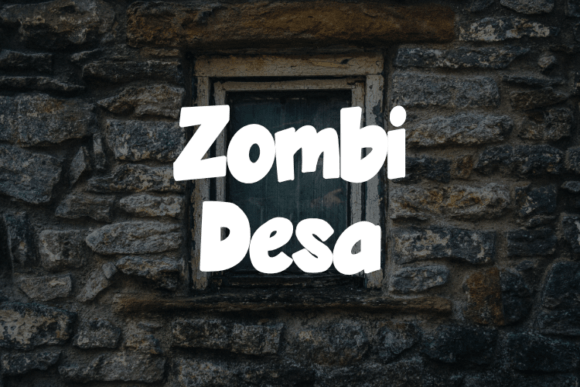
Zombi Desa: A Designer’s Practical Review
When evaluating a new display font for professional work, the first question is never just about aesthetics; it is about utility. As designers, we need to know if a typeface can survive the transition from a pristine specimen sheet to the messy reality of client projects. My initial assessment of Zombi Desa suggests it is far more than a novelty item. It carries a distinct visual weight that feels intentional rather than accidental. The letterforms possess a raw, organic texture that immediately establishes a specific mood, steering clear of the polished perfection found in standard geometric sans serifs. It feels handcrafted, evoking a sense of heritage and tactile authenticity that is increasingly valuable in modern typography.
This typeface does not whisper; it speaks with a confident, slightly weathered voice. For brand owners and marketers, this means Zombi Desa自带 an inherent narrative. It is not merely a collection of glyphs but a design asset that communicates ruggedness, tradition, or artisanal quality before a single word is read. In my evaluation, the characters maintain enough structural integrity to remain legible while delivering the decorative impact required for high-engagement visuals. It strikes a difficult balance between being a creative font and a functional tool for communication.
Real-World Application in Brand Identity
In the context of logo design, Zombi Desa performs exceptionally well when the goal is to differentiate a brand from corporate sterility. I tested the uppercase forms in a monogram lockup and found the negative space to be surprisingly cooperative. Unlike many distressed display fonts where the texture eats into the counter shapes, Zombi Desa retains clarity at medium-to-large sizes. This makes it a strong candidate for craft breweries, outdoor apparel brands, vintage-inspired cafes, and artisanal food producers. However, for tech startups or luxury fashion houses requiring sleek minimalism, this font would likely create cognitive dissonance unless used strictly as an ironic accent.
For packaging design and product labels, the font’s personality adds immediate shelf presence. When designing a label for a hot sauce or a handmade soap, the texture of Zombi Desa mimics the imperfections of physical materials like kraft paper or unglazed ceramic. This congruence between typography and substrate builds audience trust. Consumers perceive the product as authentic because the type feels physically grounded. I recommend using it for the primary product name rather than secondary information. Let the font do the heavy lifting for brand recognition, but rely on a clean sans serif font for ingredients and regulatory text to ensure compliance and readability.
Digital Performance and Content Creation
Digital environments present unique challenges for textured display fonts due to screen rendering. When testing Zombi Desa for web design headers and hero sections, I observed that it holds up best against solid, high-contrast backgrounds. Placing it over busy photography requires careful treatment, such as a drop shadow or a color block backing, to prevent the intricate details from getting lost. For bloggers and content creators, this font serves as an excellent hook for featured images and Pinterest graphics. It stops the scroll because it breaks the pattern of standard web-safe fonts.
Social media graphics benefit significantly from this typeface's bold character. In Instagram carousels or TikTok thumbnails, Zombi Desa provides the necessary hierarchy to make key phrases pop. However, restraint is vital. Using it for entire paragraphs will destroy engagement. Instead, utilize it for three-to-five-word hooks or emphatic statements. For digital sellers creating Canva templates or Cricut projects, Zombi Desa offers a premium feel that elevates simple layouts. Just ensure you are pairing it with highly legible body text. A neutral serif font or a geometric sans works best to ground the exuberance of the display face, ensuring your design assets remain user-friendly.
Hierarchy, Readability, and Strategic Restraint
The most critical aspect of working with Zombi Desa is understanding its limitations regarding hierarchy. Because the font is so visually active, it naturally sits at the top of the visual pyramid. It demands attention. Therefore, it should rarely be used for supporting text, captions, or long-form editorial content. In editorial design, reserve it for pull quotes, chapter titles, or drop caps. Overuse dilutes its impact and fatigues the reader’s eye. Professionalism in typography is often defined by what you choose not to set in the display font.
Readability varies drastically based on case selection. During my review, I compared the uppercase and lowercase sets side-by-side. The uppercase letters offer a uniform, blocky rhythm suitable for short, punchy headlines. The lowercase set, however, reveals more of the handwritten font influence and organic flow. Depending on your project, mixing cases might create awkward tension. I advise sticking to either all-caps for maximum stability or sentence case for a friendlier, more approachable vibe. Avoid alternating caps within words, as the varying baseline heights can look disjointed in this specific style.
Essential Pre-Launch Testing Protocol
Before committing Zombi Desa to a final deliverable, every designer must run through a rigorous testing phase. Do not rely solely on the artboard view. Here is the practical checklist I use for this category of commercial font:
- Black and White Test: Remove all color. If the font relies on color contrast to be legible, it fails. Zombi Desa should hold its structure in pure black ink.
- Scale Stress Test: Print it out at 12pt, 24pt, and 72pt. Check where the texture begins to break down or fill in. Define your minimum safe size and stick to it.
- Font Pairing Audit: Set a headline in Zombi Desa and try three different body fonts beside it. Ensure the x-heights relate harmoniously and that the styles do not fight for dominance.
Ultimately, Zombi Desa succeeds because it respects the intelligence of the viewer. It provides atmosphere without sacrificing form. Whether you are designing a festival poster, a boutique hotel identity, or a series of educational YouTube thumbnails, this typeface offers a robust foundation for visual storytelling. Use it with intention, pair it with discipline, and always test it in context. When treated with professional respect, Zombi Desa transforms from a mere display option into a powerful engine for brand differentiation and audience connection.